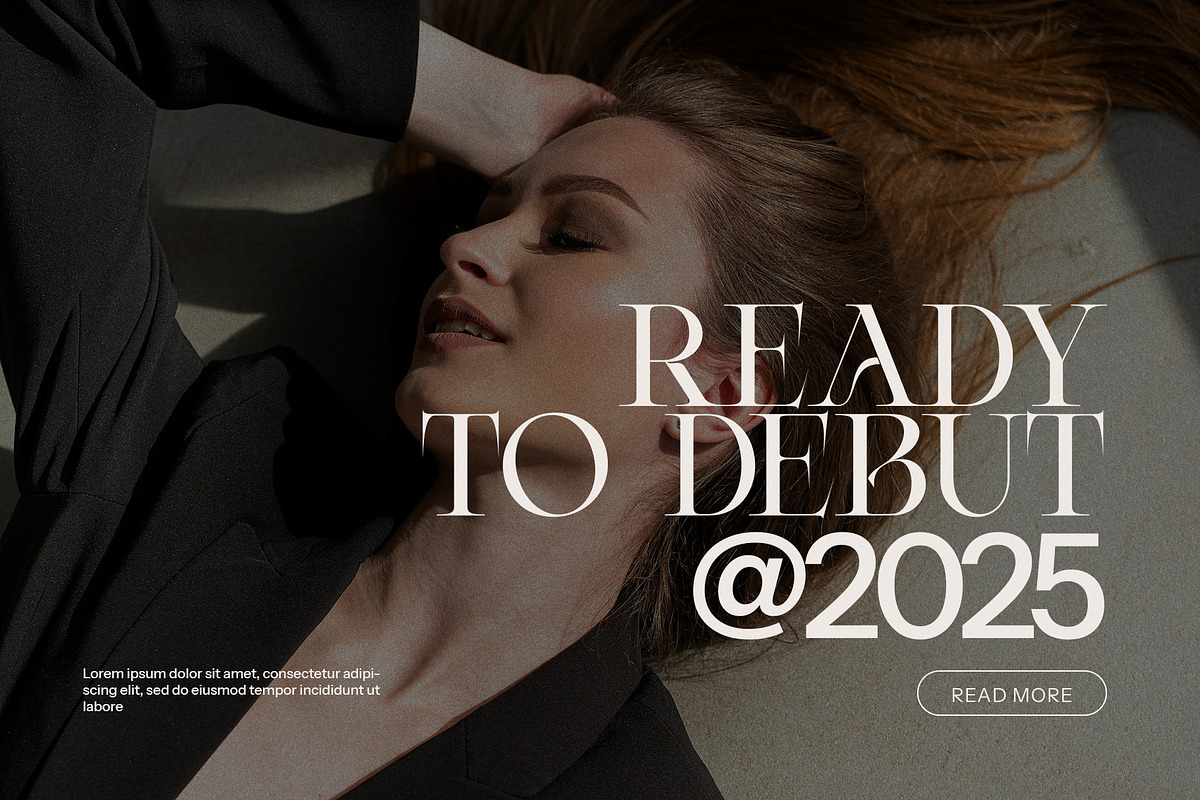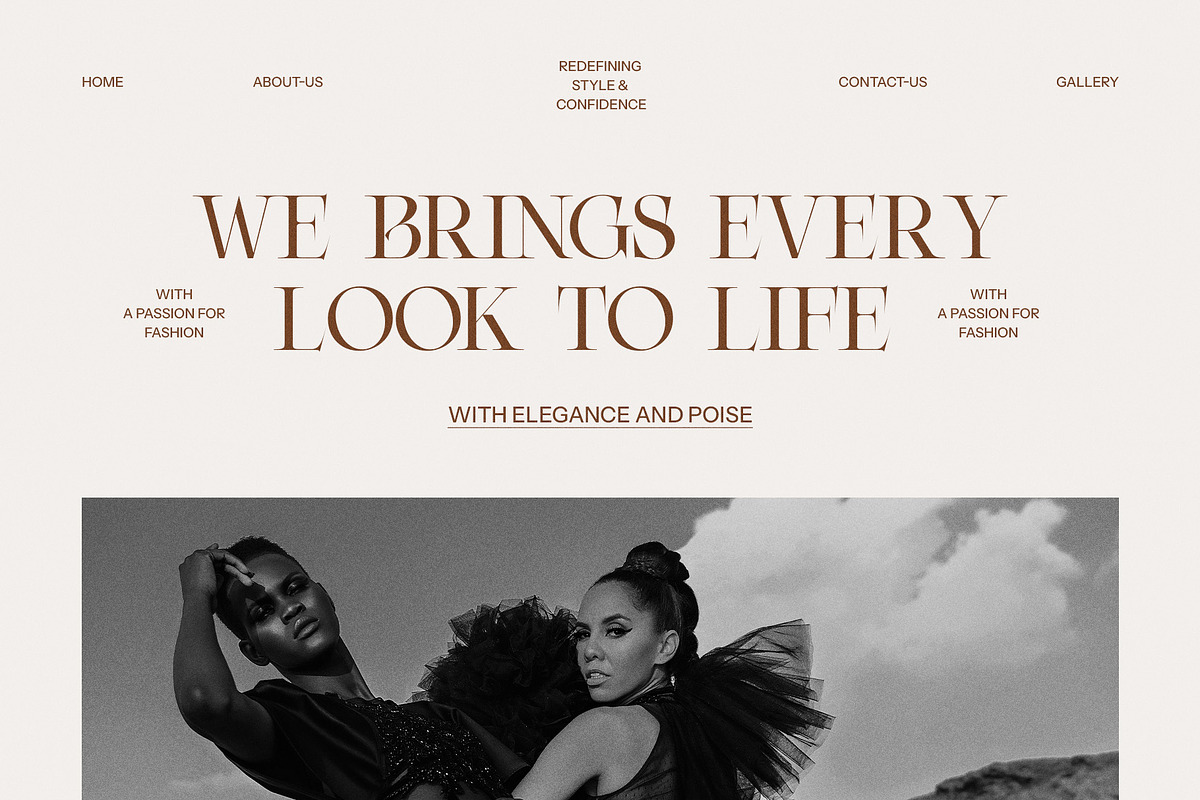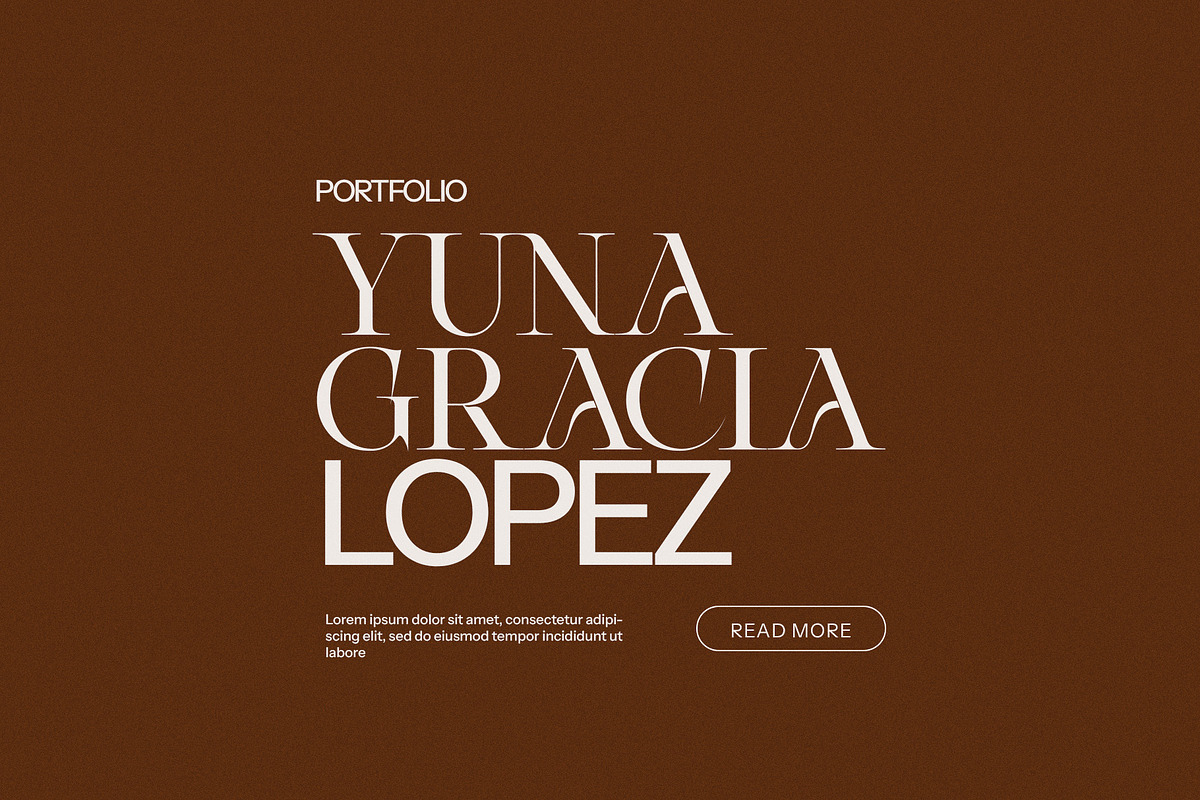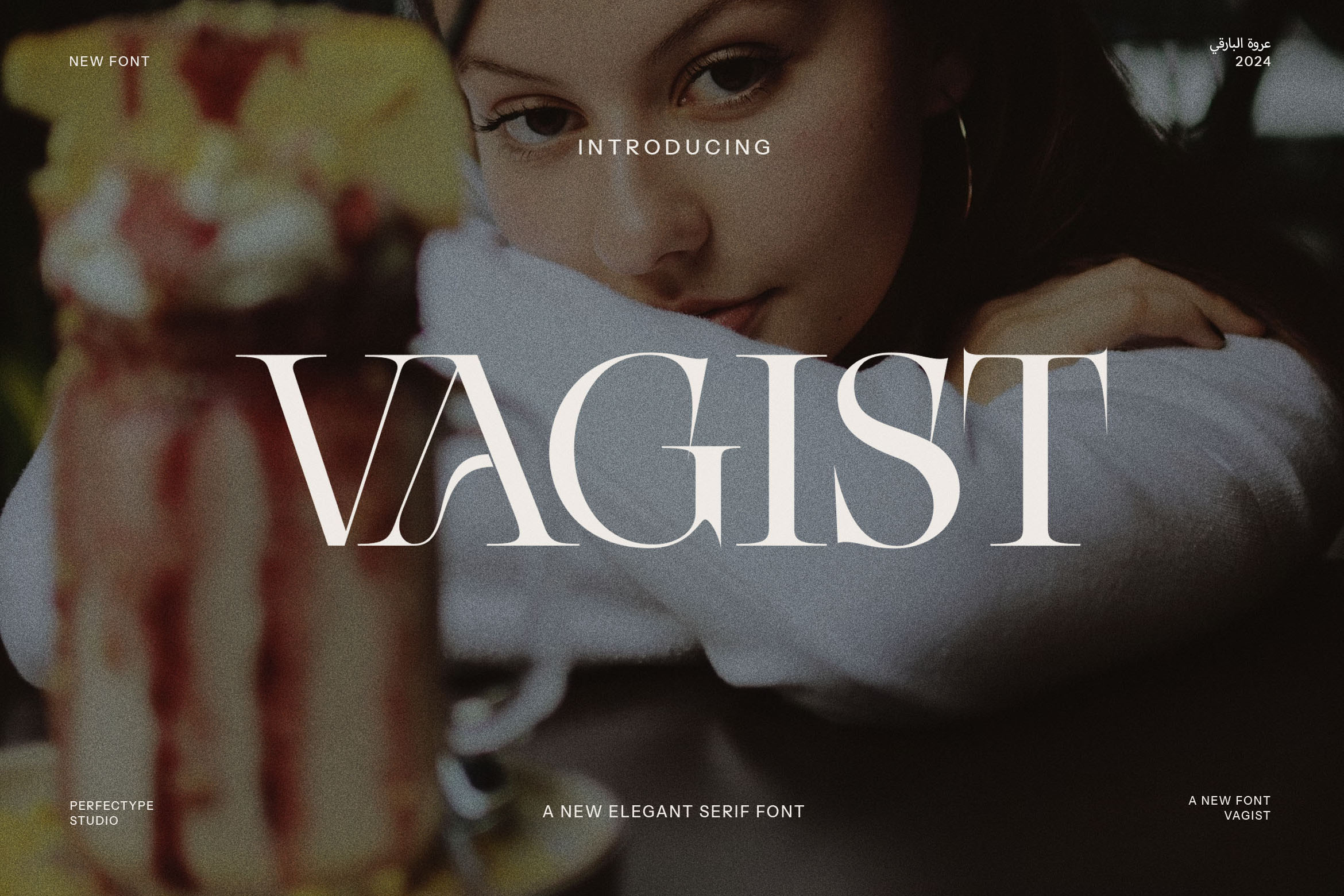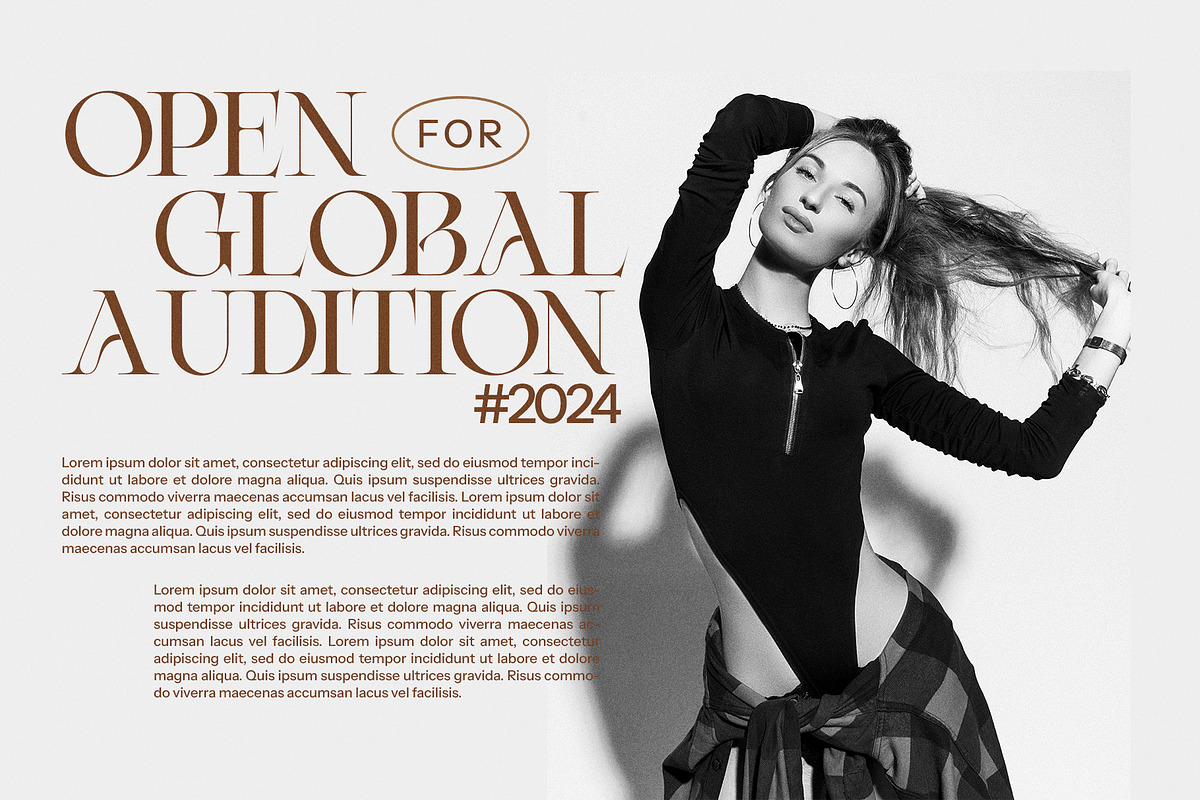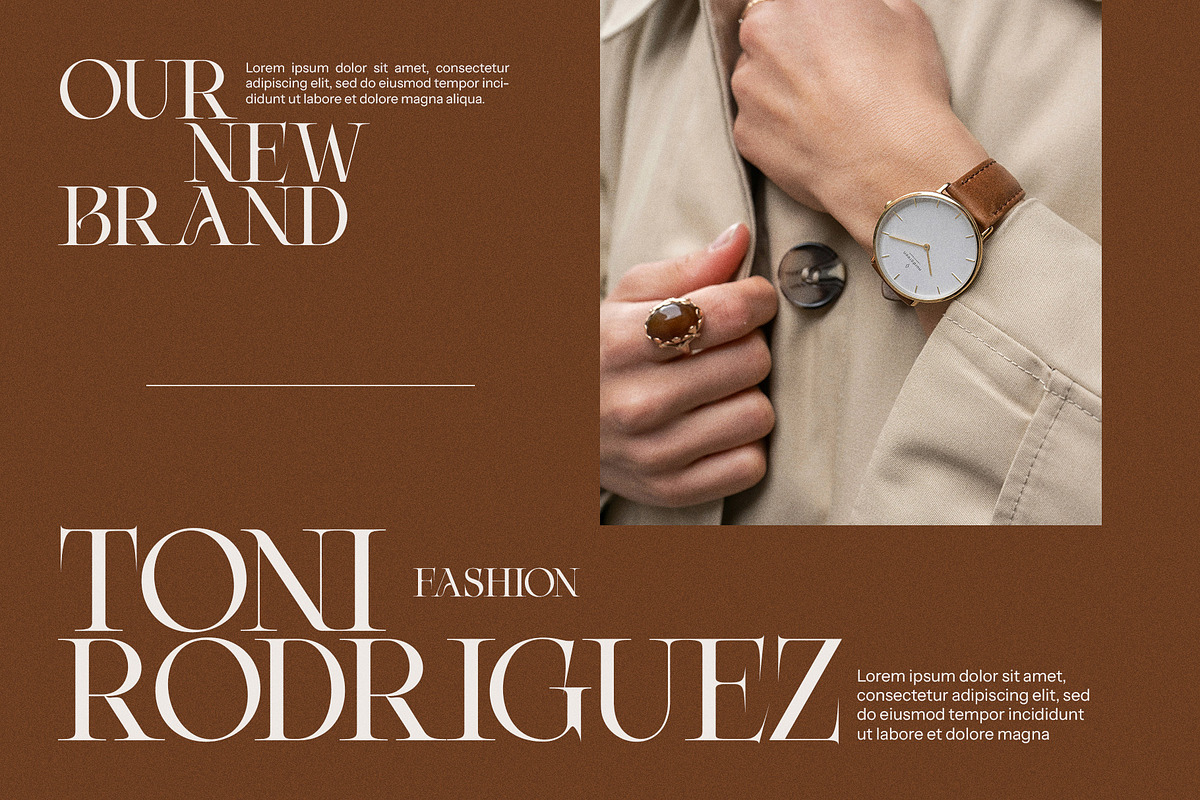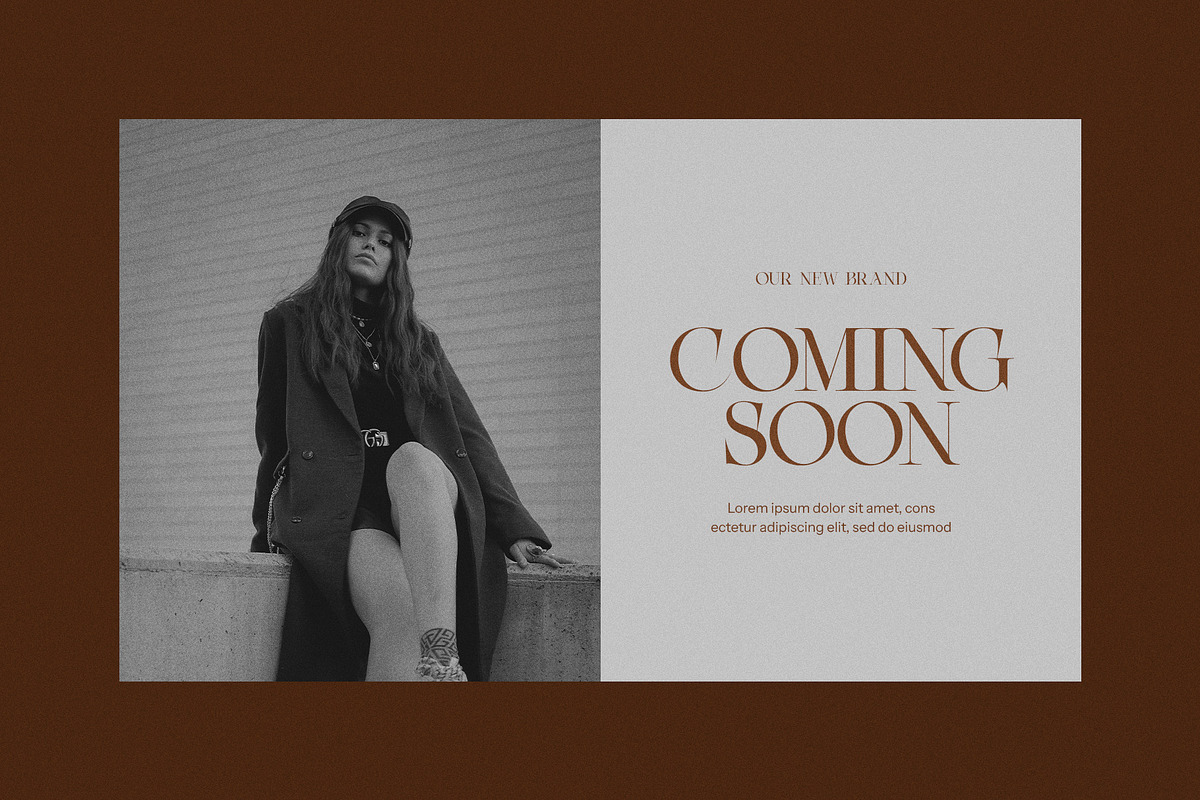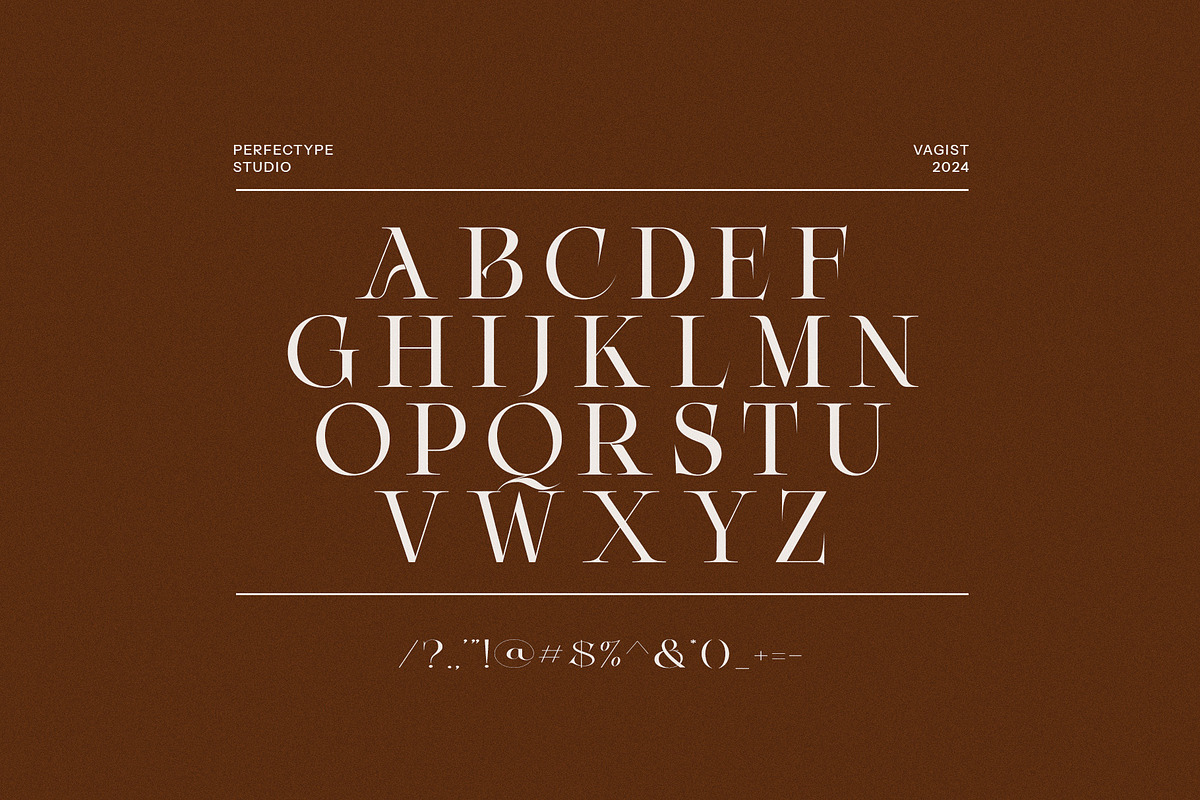
Vagist Modern Serif Font
Vagist Modern Serif Font – Elegant, Vintage-Inspired Design for Modern Projects
Introducing Vagist Modern Serif Font, a striking and sophisticated typeface that blends contemporary design with vintage elegance. This modern serif font features elongated letterforms and unique pointed ends, giving it a distinctive and refined appearance. With its elegant curves and sharp serifs, Vagist is perfect for a wide range of design projects, including logos, branding, websites, magazines, and advertisements.
The vintage-inspired aesthetic of Vagist Modern Serif Font brings a sense of timeless sophistication to any project. Whether you're designing for luxury brands, boutiques, fashion labels, or high-end food packaging, this font elevates your design with its classic yet contemporary feel. Its graceful, elongated shapes make it ideal for creating memorable brand identities and striking visuals that stand out.
With its high-contrast details and excellent legibility, Vagist works well in both digital and print media. Whether you're using it for headlines, subheadings, or body text, this font ensures your content remains clear, readable, and stylish. Its unique blend of vintage charm and modern elegance makes it perfect for editorial layouts, advertising materials, and more.
Vagist Modern Serif Font is the perfect choice for designers seeking to create sophisticated and visually stunning content. Whether for branding, magazine layouts, or luxury product packaging, this font brings a touch of elegance and refinement to any project. Elevate your design with Vagist, the modern serif font with vintage appeal.